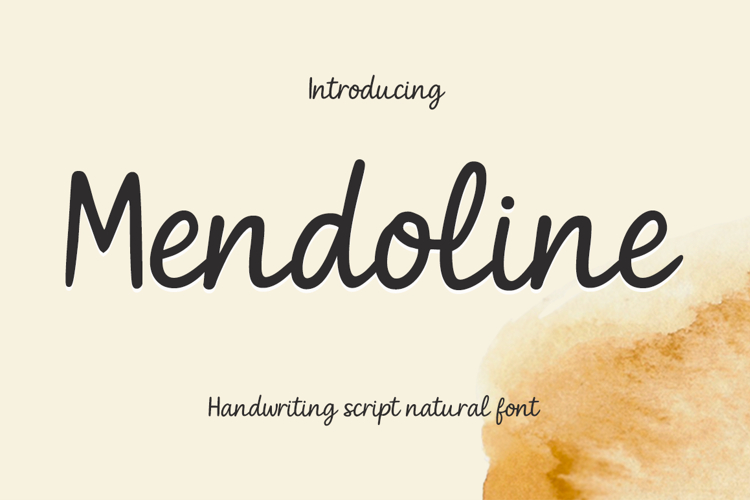
Simple stylish
Mendoline is a beautifully crafted handwritten script font that brings a natural, organic touch to your designs. With its smooth flow and elegant curves, this font mirrors genuine handwriting, making it perfect for a wide range of creative projects. Whether you're designing logos, invitations, branding materials, or social media content, Mendoline adds a stylish, unique flair to any design.